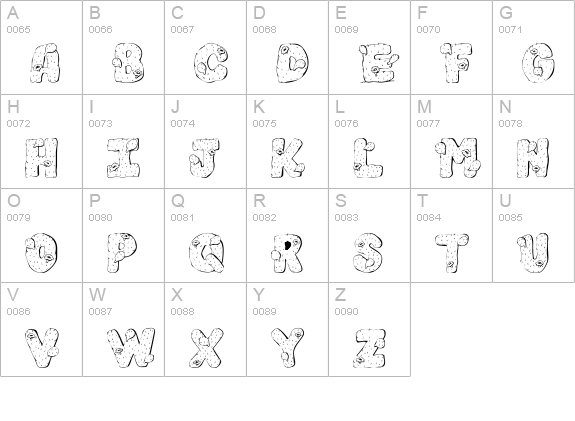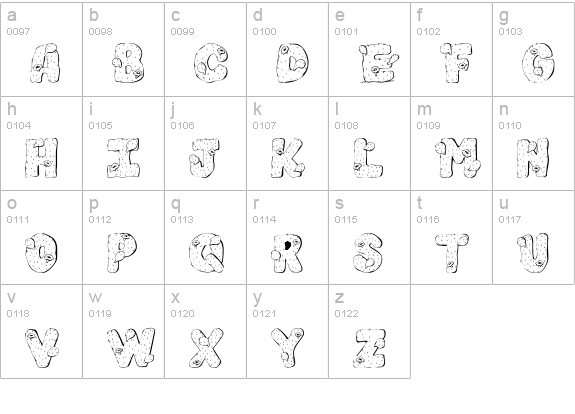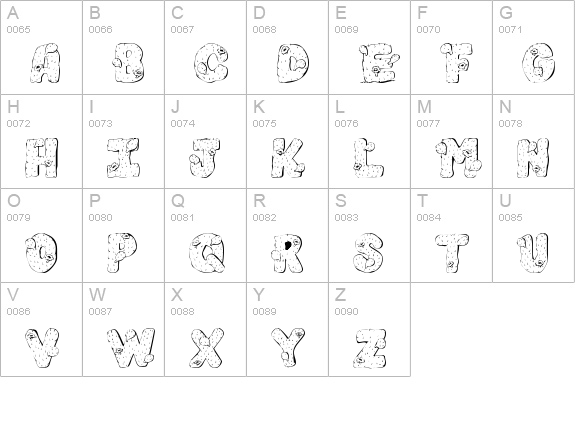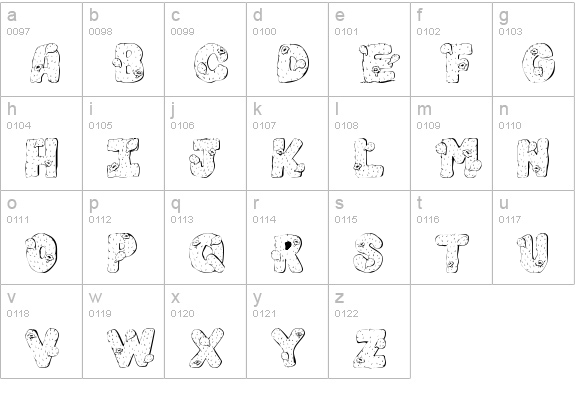
Introducing the exquisite 101! Cacti font, a stunning display typeface that will add a touch of whimsy and charm to your designs. With its intricate cactus-inspired detailing and unique aesthetic, this font is perfect for creating eye-catching headers, logos, and signage that truly stand out. But the best part? This gorgeous font is completely free for personal and commercial use, making it a must-have addition to your font collection. You can easily download the 101! Cacti font at FontsMarket.com and start incorporating its playful yet elegant style into your projects today. Don't miss out on this fantastic opportunity to elevate your designs with this fabulous typeface!